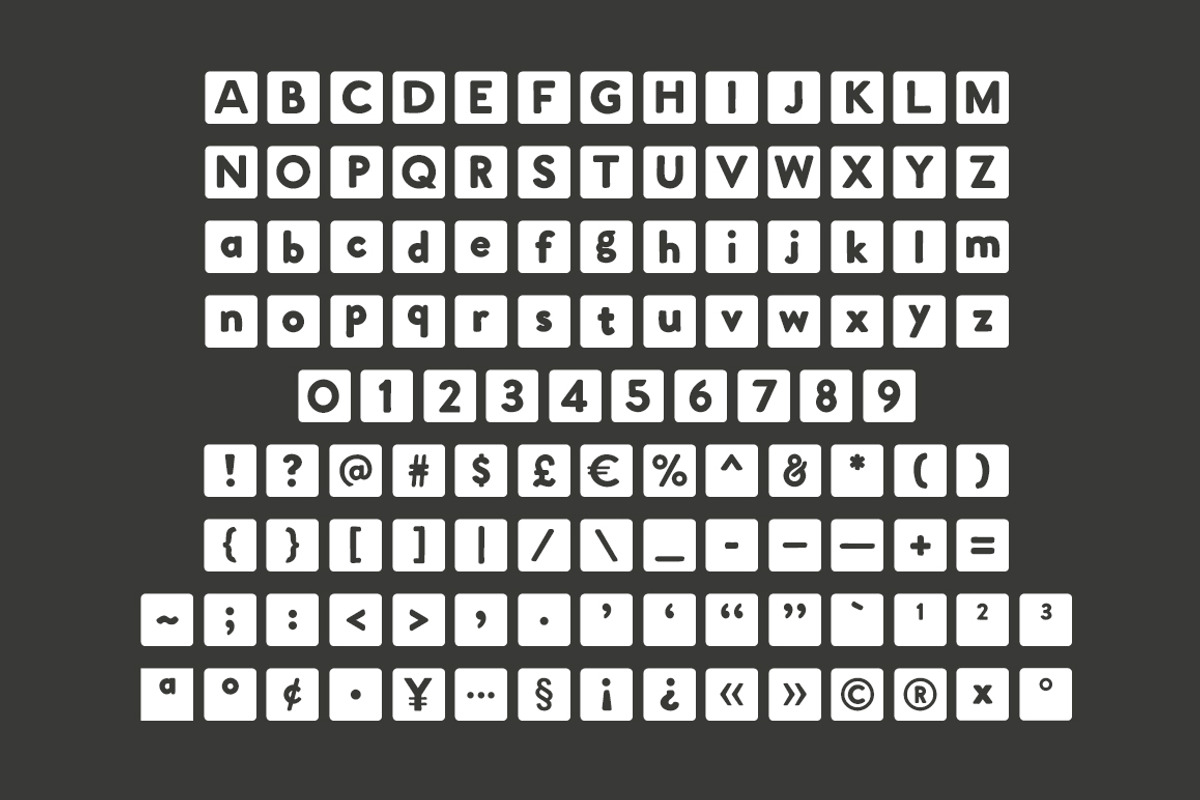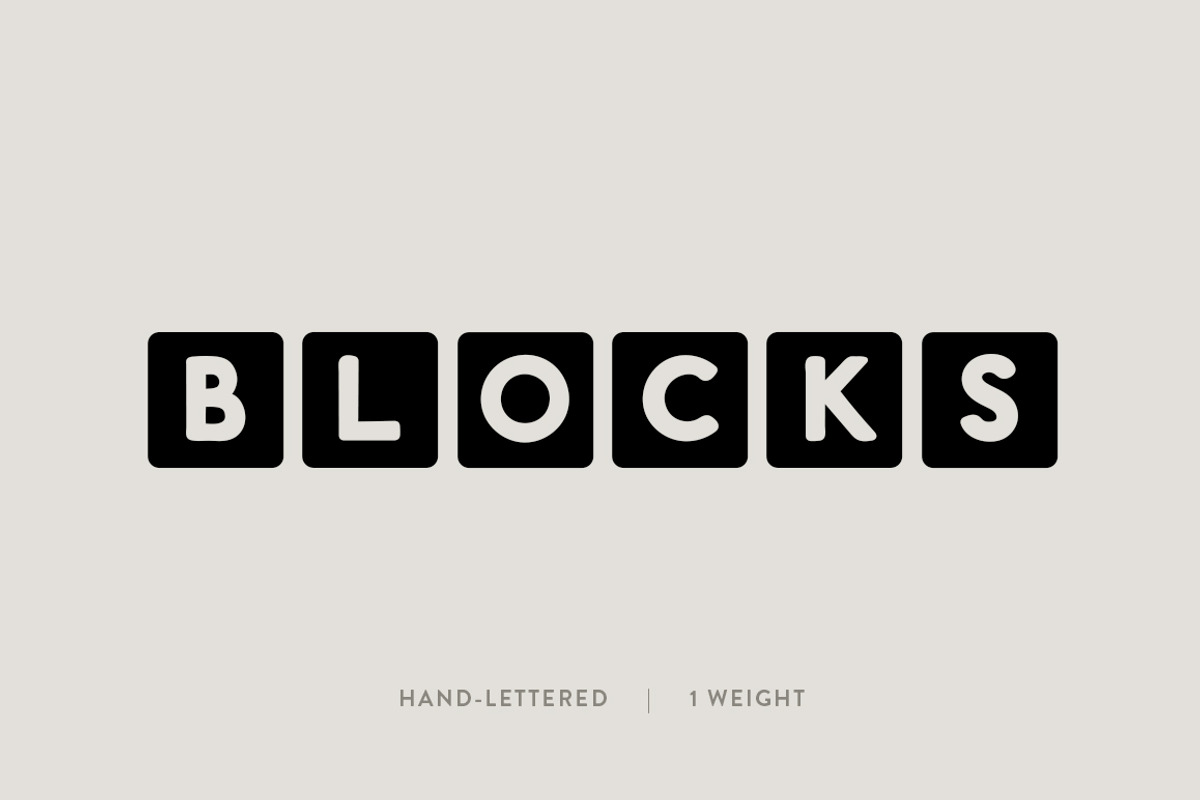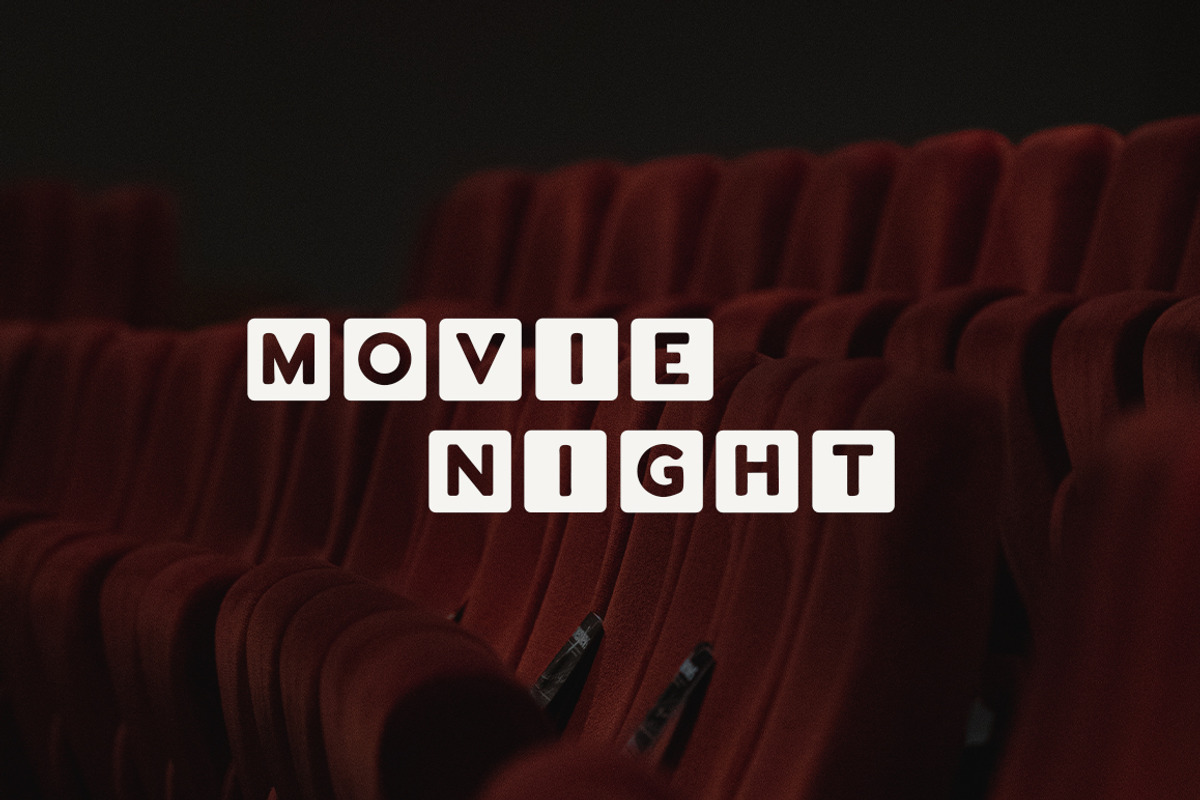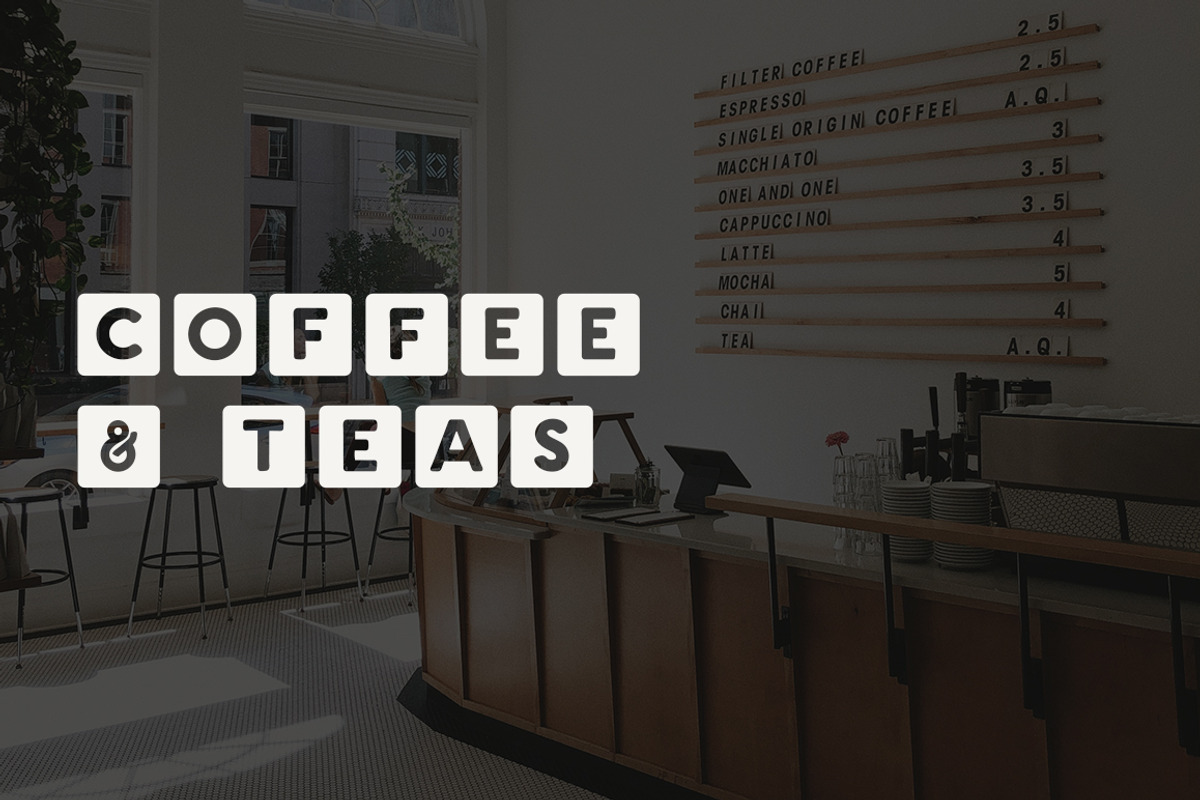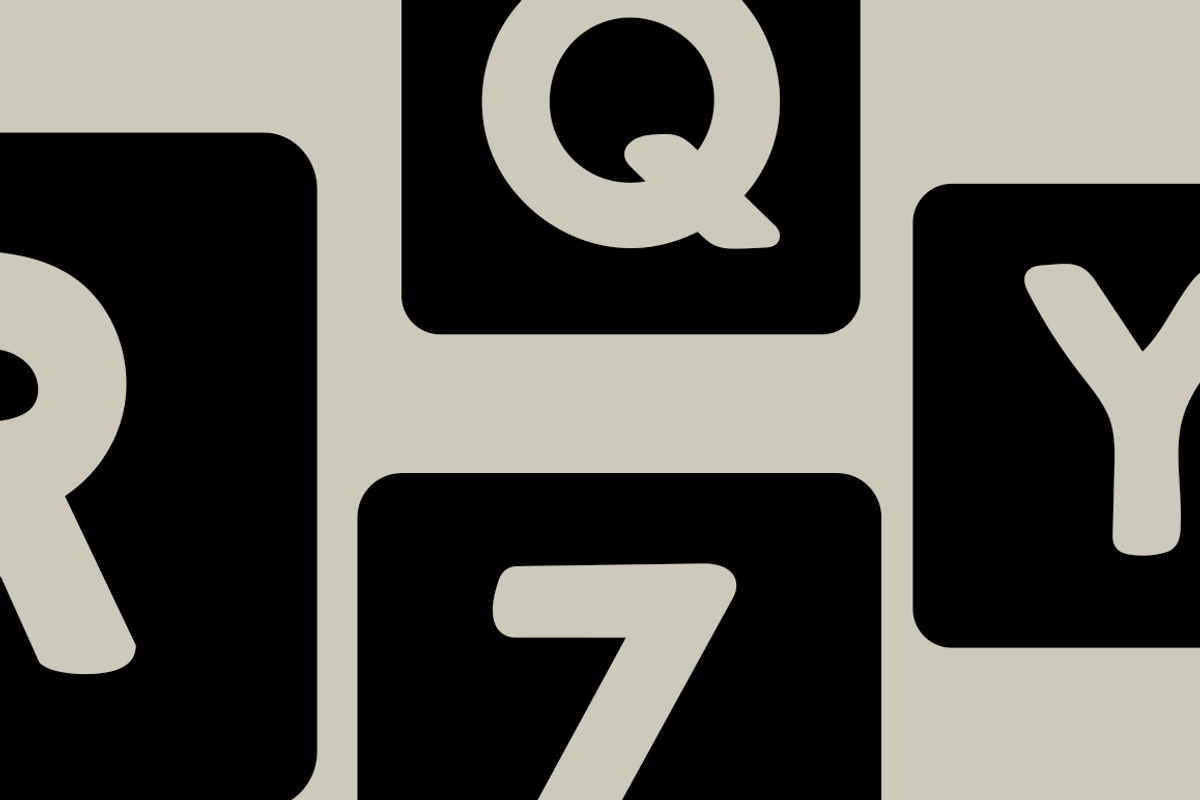
Blocks: A Bold Lettered Font
The Blocks Font
Blocks pulls from the shapes of the previous hand-lettered font I created, Sandarna, which was inspired by a trip to Sweden and a nighttime dip in the Baltic Sea. The font creates a timeless feel while tipping its cap to the past with its vintage-inspired lines. From afar, the crisp lines will fool you but zoom in and you'll see a nice organic wave within the letters. With its simple feel and touch of organic, this font is meant to be versatile. It is perfect for all projects that need anything from a naturally bold or a minimalistic thin style.
Aa Bb Cc Dd Ee Ff Gg Hh Ii Jj Kk Ll Mm Nn Oo Pp Qq Rr Ss Tt Uu Vv Ww Xx Yy Zz 0 1 2 3 4 5 6 7 8 9 @:.!?()[]{}-+*,;~$%&|=—–_^£€“”`’`/#`¹²³ªº¢•¥…§¡¿«»©®×°